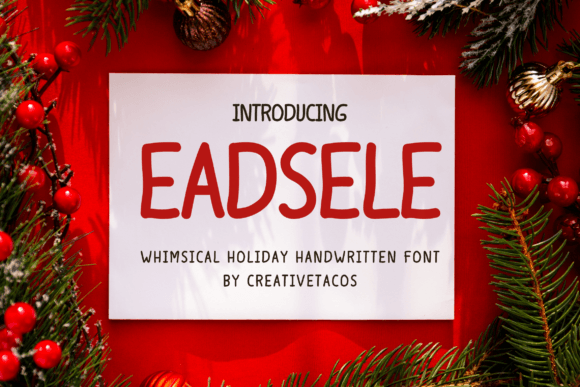
Eadsele Font: The Perfect Addition to Your Holiday Designs
As the holiday season approaches, designers and crafters are on the lookout for the perfect font to add a touch of cheer and festivity to their projects. If you’re searching for a font that embodies the spirit of Christmas, look no further than Eadsele Font. This delightful handmade font is designed to bring a playful and charming touch to your holiday designs, making it ideal for Christmas cards, invitations, decorations, and more.
What is Eadsele Font?
Eadsele Font is a cheerful and festive font with a handwritten style that’s sure to capture the essence of the holiday season. Its unique and playful design makes it perfect for adding a personal touch to your holiday projects. Whether you’re designing Christmas cards, invitations, or decorations, Eadsele Font is the perfect choice to add a warm and joyful feel to your designs.
Key Features of Eadsele Font
- Handwritten Style: Eadsele Font boasts a beautiful handwritten style that’s perfect for adding a personal touch to your holiday designs.
- Cheerful and Festive: This font is designed to bring a cheerful and festive feel to your projects, making it ideal for holiday designs.
- Playful and Charming: Eadsele Font has a playful and charming look that’s sure to add a warm and joyful feel to your designs.
- Versatile: This font is perfect for a variety of holiday projects, including Christmas cards, invitations, decorations, and more.
Why Choose Eadsele Font?
So, why choose Eadsele Font for your holiday designs? Here are just a few reasons why this font stands out:
- Unique and Eye-Catching: Eadsele Font has a unique and eye-catching design that’s sure to make your holiday designs stand out.
- Easy to Read: Despite its playful and handwritten style, Eadsele Font is easy to read, making it perfect for use in a variety of projects.
- Customizable: This font can be customized to fit your specific design needs, allowing you to add your own personal touch.
Using Eadsele Font in Your Holiday Designs
Eadsele Font is incredibly versatile and can be used in a variety of holiday designs, including:
- Christmas Cards: Add a personal touch to your Christmas cards with Eadsele Font.
- Invitations: Use Eadsele Font to create festive and playful invitations for your holiday parties and events.
- Decorations: Add a touch of cheer to your holiday decorations with Eadsele Font.
- Social Media Graphics: Use Eadsele Font to create festive and engaging social media graphics for the holiday season.
Tips for Getting the Most Out of Eadsele Font
Here are a few tips for getting the most out of Eadsele Font:
- Experiment with Colors: Eadsele Font looks great in a variety of colors, so don’t be afraid to experiment and find the perfect hue for your design.
- Pair with Other Fonts: Try pairing Eadsele Font with other fonts to create a unique and eye-catching design.
- Use in Combination with Images: Eadsele Font looks great in combination with images, so try using it to add a personal touch to your holiday graphics.
Eadsele Font is a delightful handmade font that’s perfect for adding a touch of cheer and festivity to your holiday designs. Its playful and charming look makes it ideal for Christmas cards, invitations, decorations, and more. With its unique and eye-catching design, ease of use, and customizability, Eadsele Font is sure to become a go-to font for designers and crafters this holiday season.